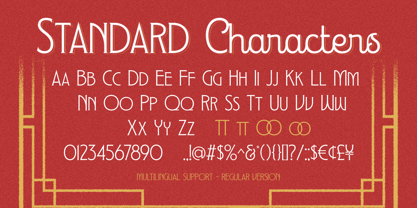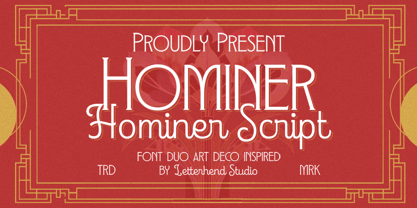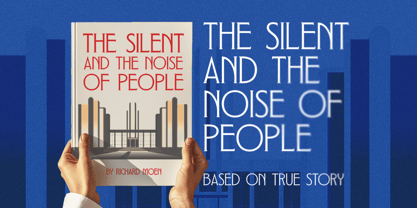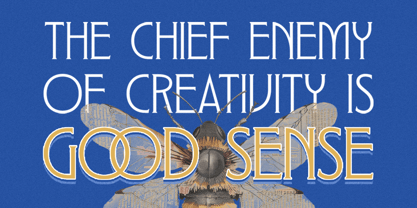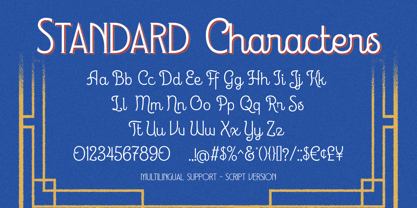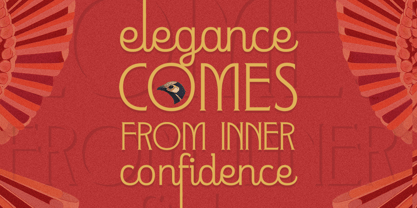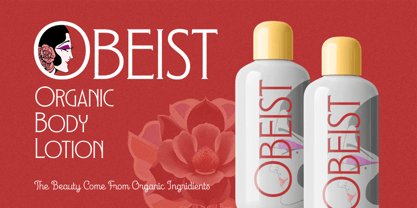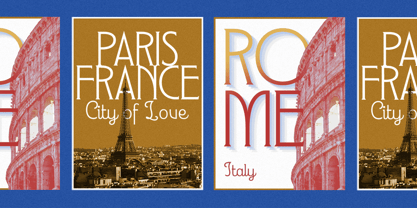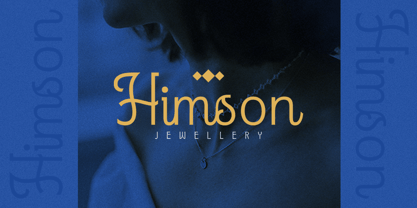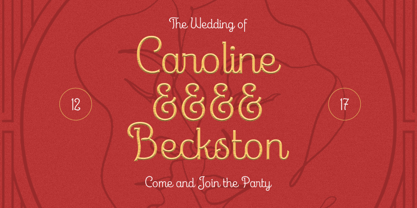
Hominer
Hominer is a stylish font duo inspired by classic Art Deco aesthetics, featuring a tall, elegant serif and a charming retro script. This combination brings vintage sophistication and playful flair, making it perfect for branding, posters, editorial designs, or any project that seeks a glamorous and nostalgic feel. Designed by Letterhend Studio, Hominer delivers both structure and softness in one timeless package.
Features :
• Uppercase & lowercase
• Numbers and punctuation
• Alternates Character
• Multilingual support